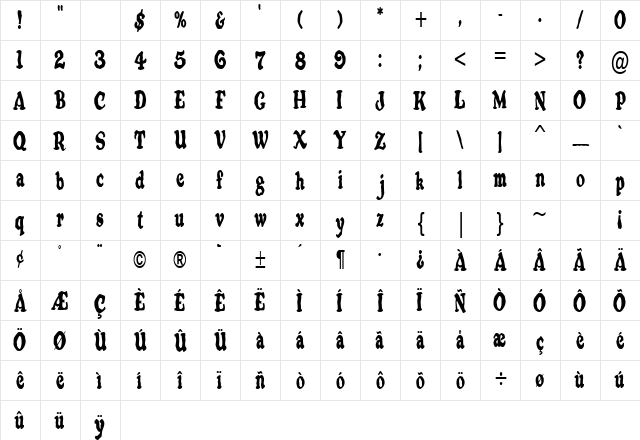
OatmealCondensed Regular
Design Context for OatmealCondensed
OatmealCondensed is a composed and adaptable typeface that performs quietly and consistently across a wide range of design contexts. Its narrow stance lets it pack a punch even in space-constrained designs.